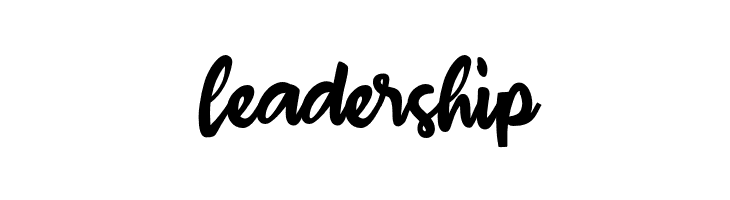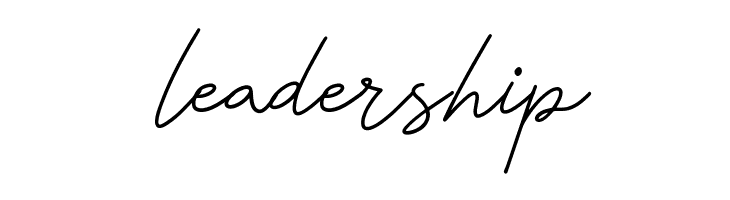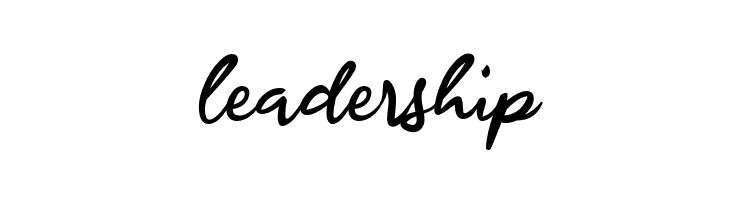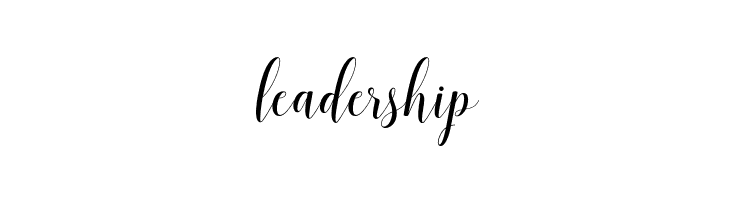
• Asimov Silicon Italic
A bold, abstract font with sharp, angular shapes and a futuristic style.
• Asimov Silicon Narrow
A fragmented, angular font with a futuristic and edgy style.
• Asimov Silicon Narrow Italic
A jagged, futuristic font with sharp, angular characters and a dynamic, edgy style.
• Asimov Silicon Wide
A highly decorative and abstract font with sharp, angular shapes and fragmented forms.
• Asimov Silicon Wide Italic
A bold, wide, and italic decorative font with a fragmented, abstract design.
• Asimov SuperItalic
• Asimov Wide
A bold, modern sans-serif font with clean lines and geometric structure.
• Asimov Wide Italic
A modern, wide, and italicized font with bold characters and a sleek design.
• Asimov Wide Outline
A bold, wide outline font with a modern and impactful style.
• Asimov Wide Outline Italic
A bold, wide outline italic font with a modern and dynamic style.
• AsimovOu
A bold, outlined font with a modern, geometric style.
• Asinan
A bold, playful handwritten font with dynamic strokes and a casual style.
• Asittany Script Regular
A graceful and flowing script font with elegant, continuous strokes.
• Asittany Script-Regular
An elegant, flowing script font with smooth, continuous strokes.
• ASIX-FOUNDER
A bold, geometric font with a futuristic and edgy design.
• ASIX-FOUNDER Italic
A bold, angular, and futuristic italic font with a dynamic and modern appearance.
• Asiyah Script
A flowing, elegant script font with ornate uppercase and smooth lowercase letters.
• Askana
A bold, flowing script font with elegant, interconnected strokes.
• Askania
A delicate, elegant script font with a handwritten style.
• Asket-ExtraBold
A bold and robust typeface ideal for impactful designs.
• AsketCondensed-ExtraBold
A bold, condensed typeface perfect for impactful headlines.
• AsketExtended-Light